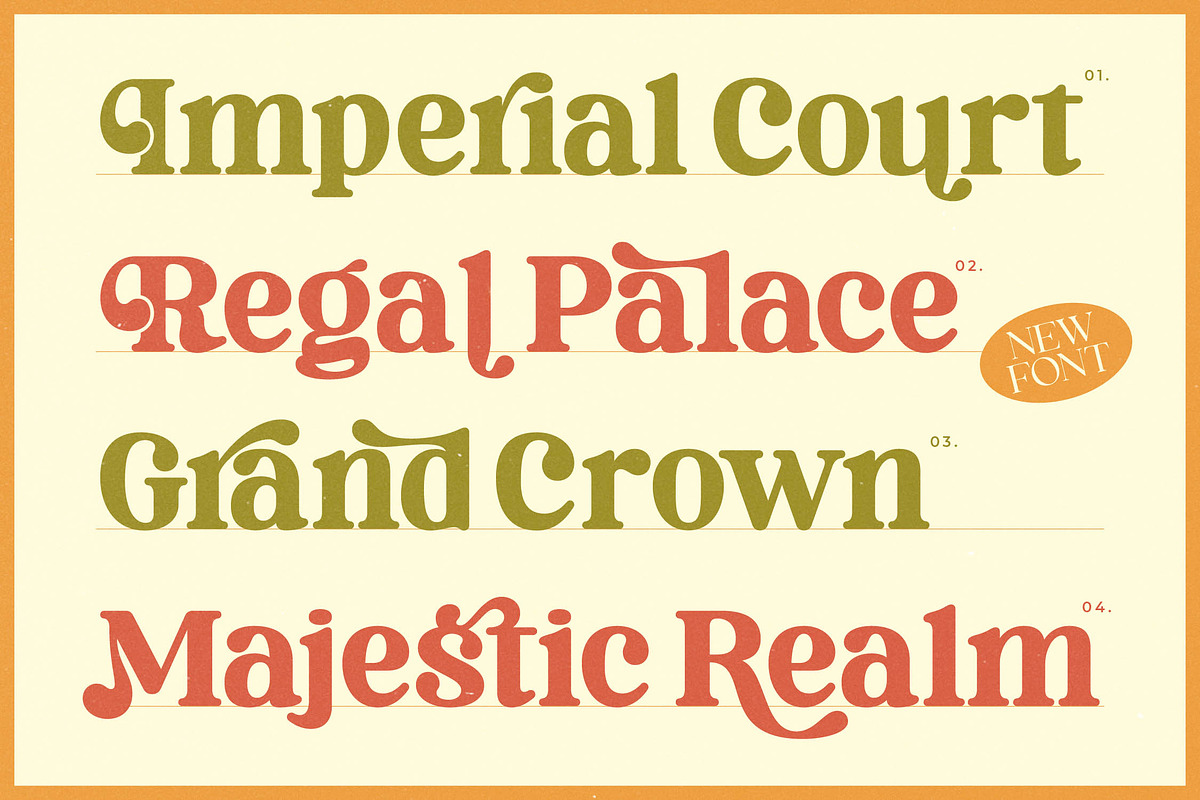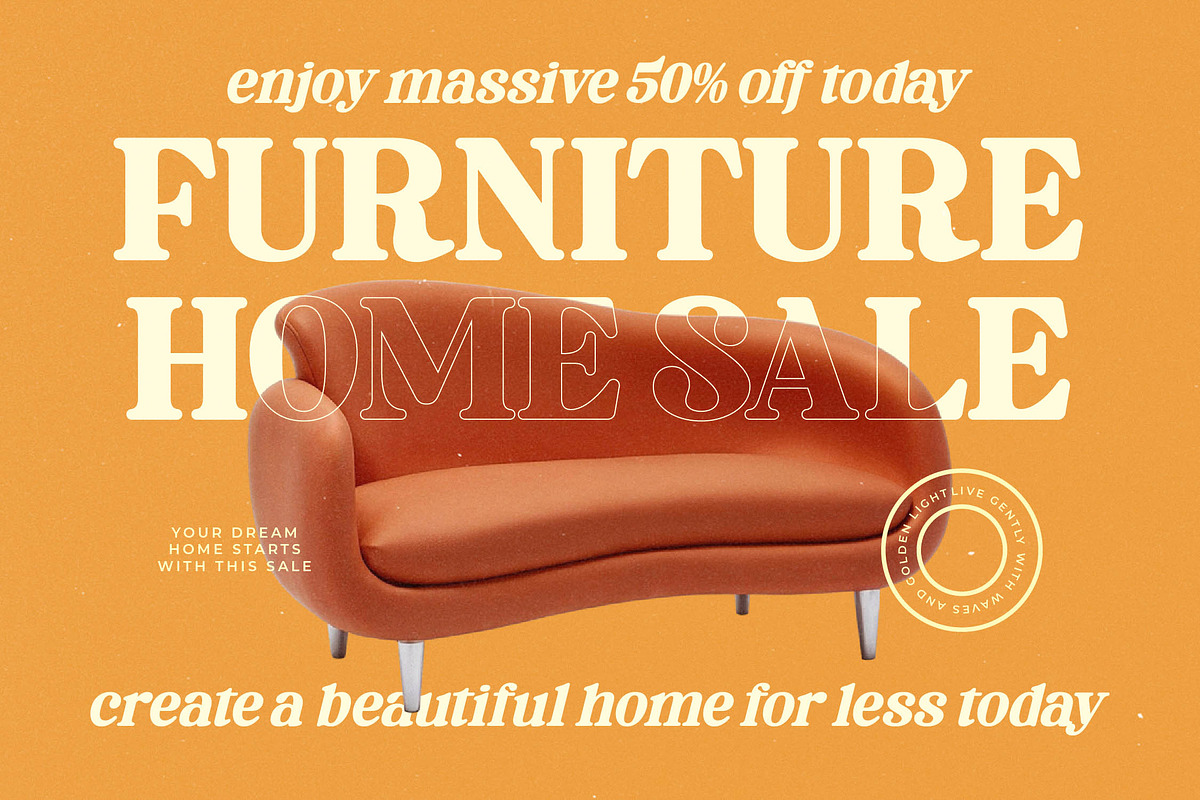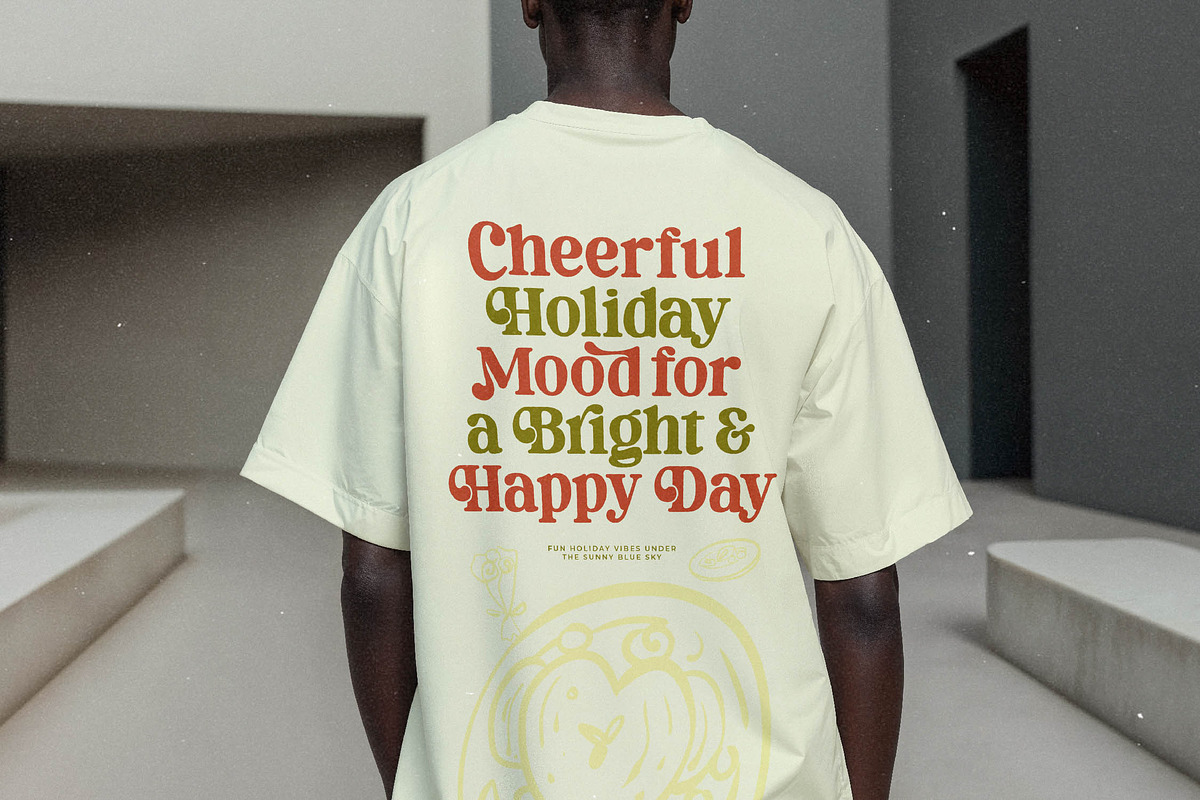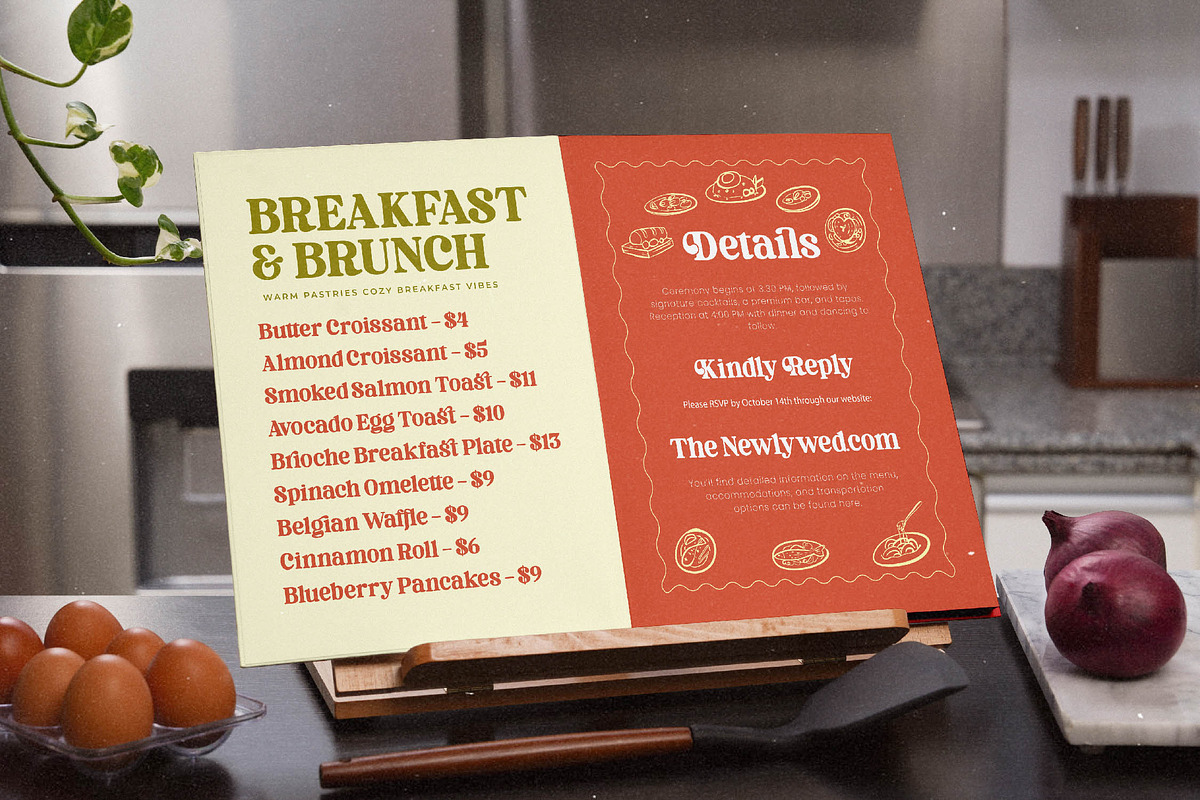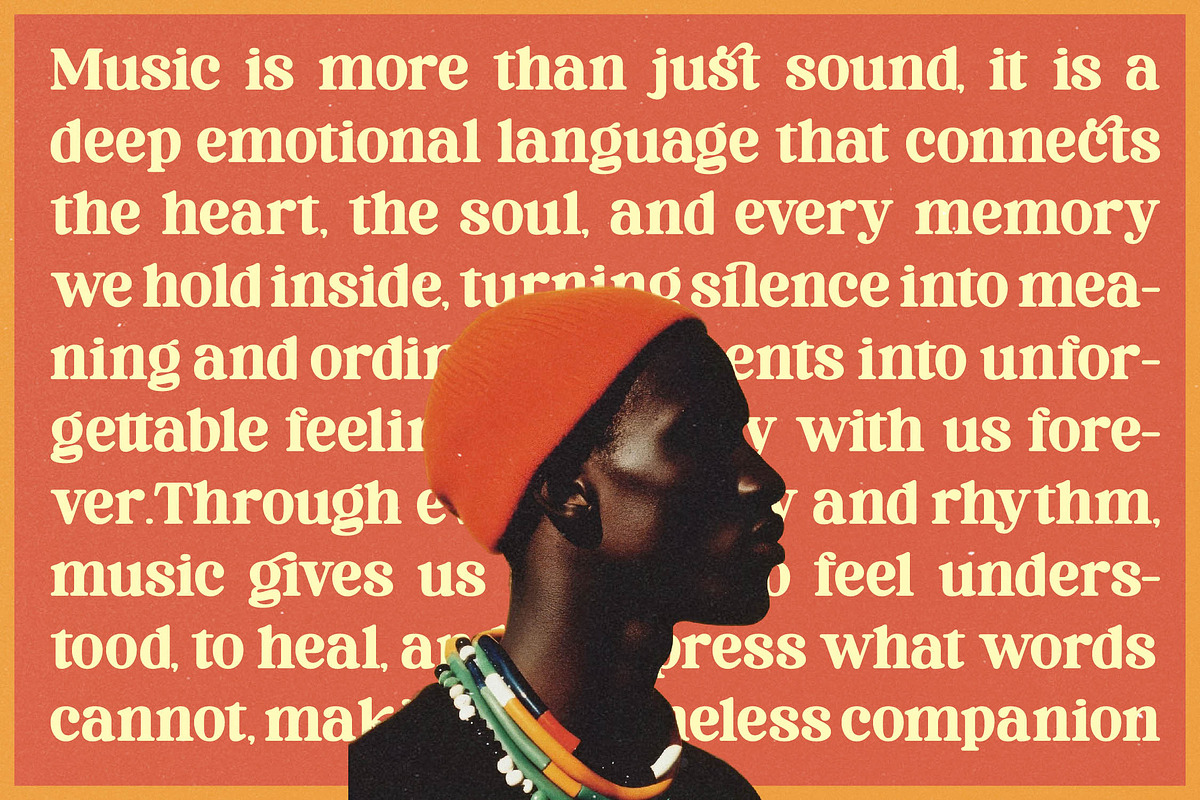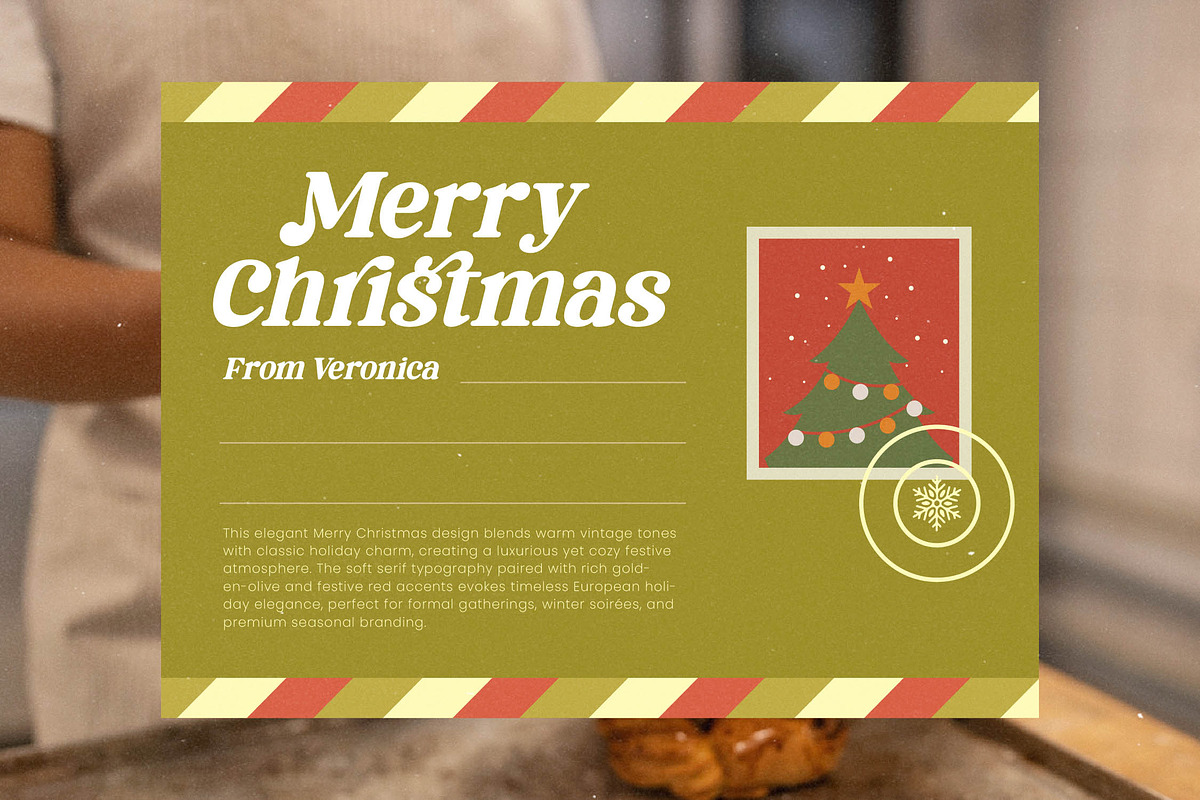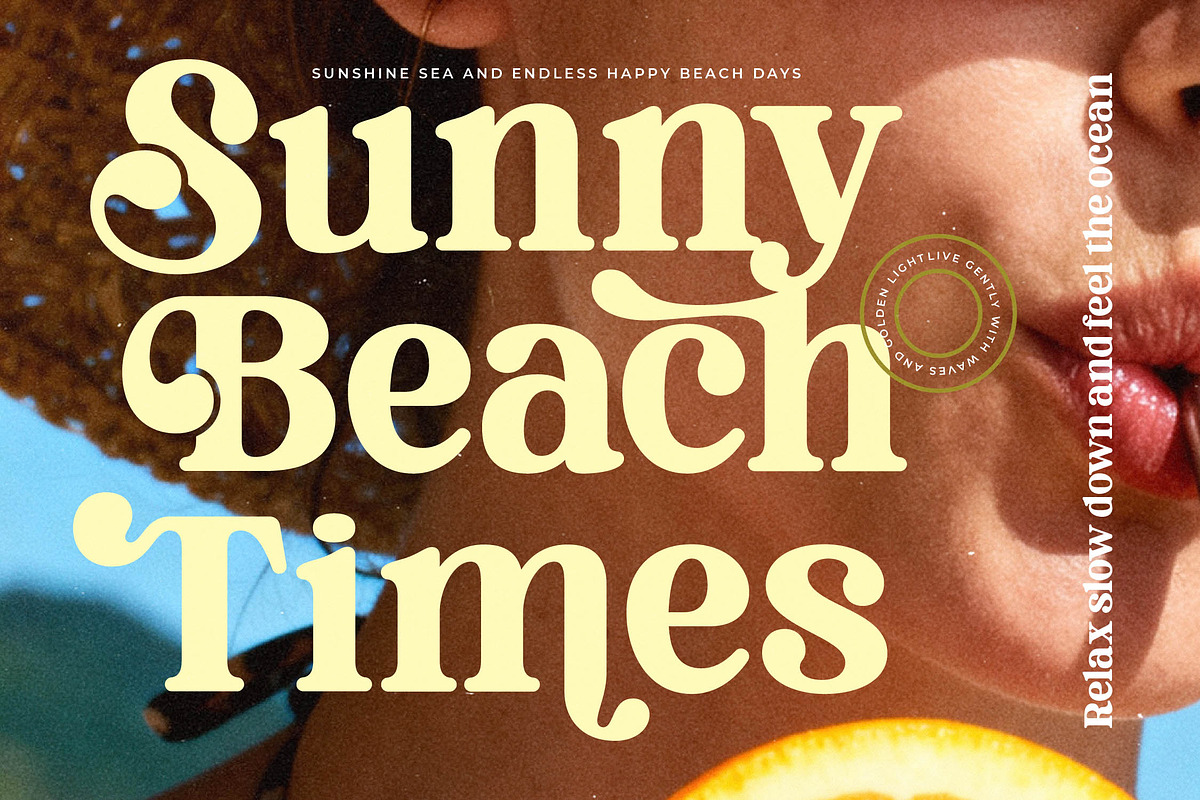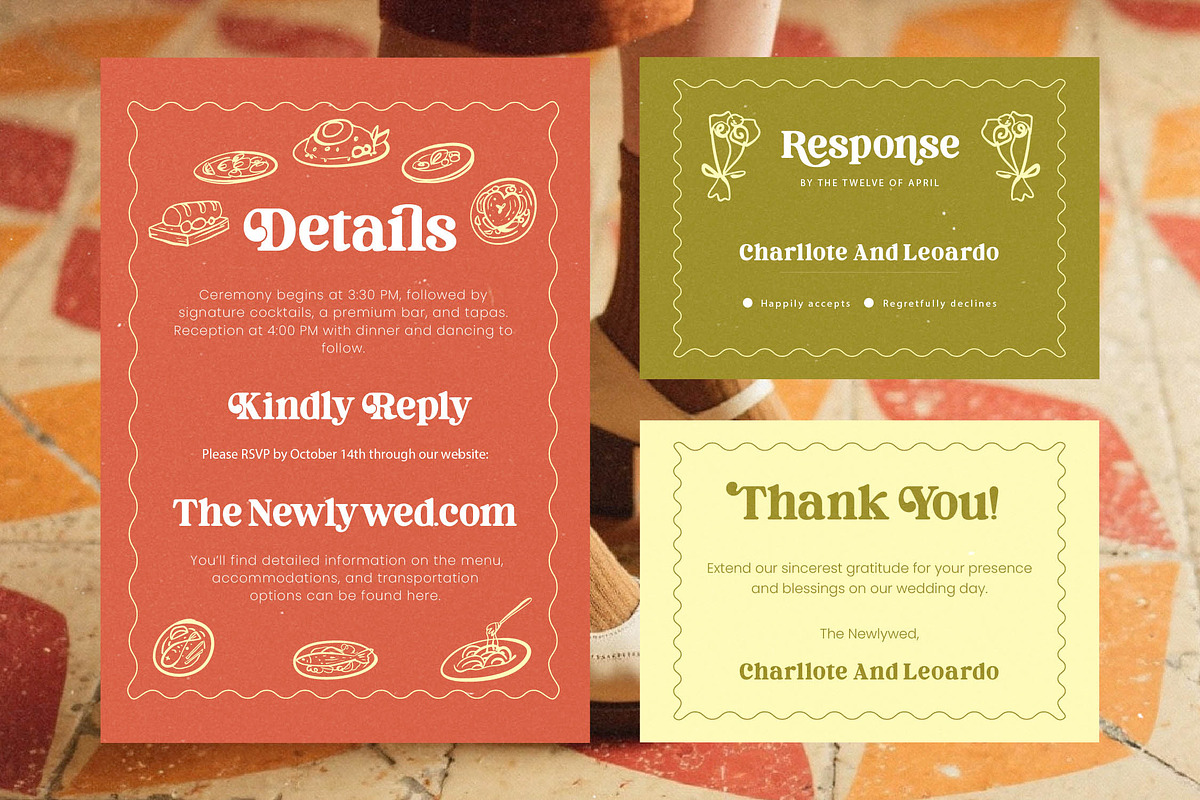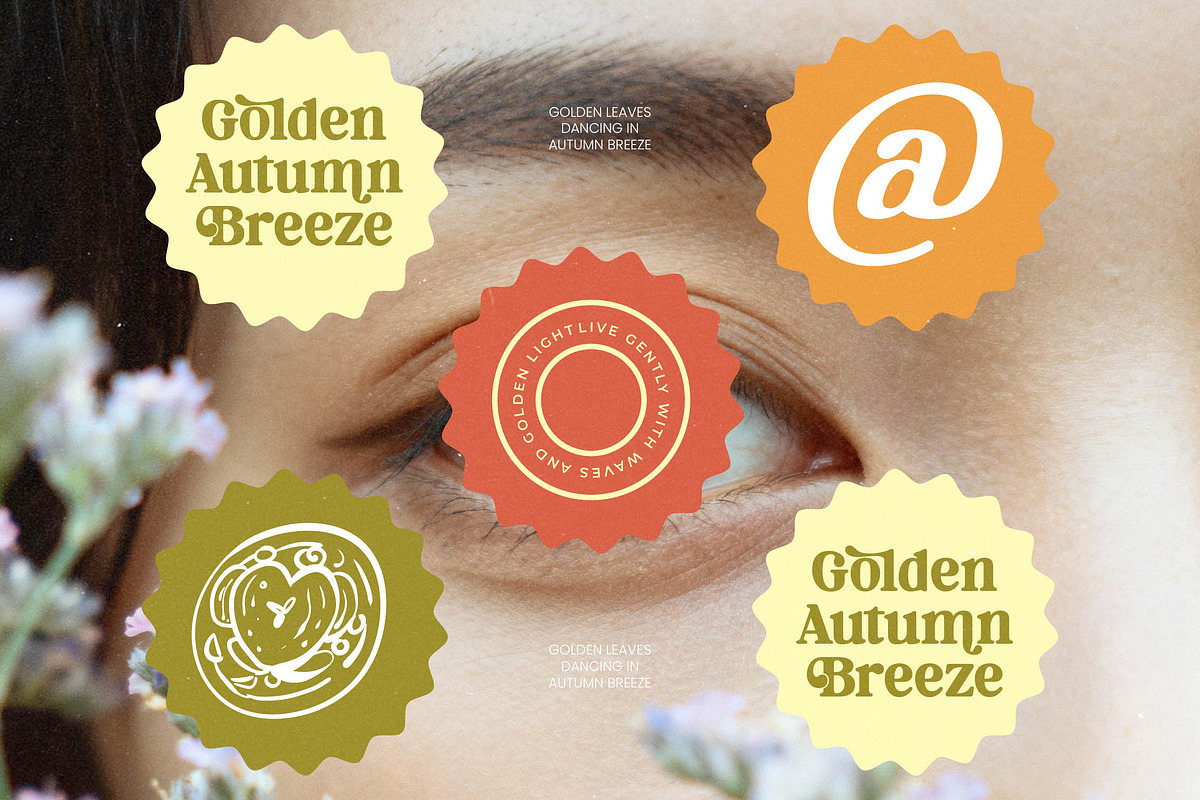
Kingly Queen Retro Serif Display
Kingly Queen captures the essence of sophisticated charm, blending timeless elegance with a playful rhythmic flow that instantly commands attention. It is designed for those who want their message to feel both authoritative and approachable.
Drawing inspiration from the golden era of 1970s editorial design and high-end boutique signage, this typeface evokes a sense of warm nostalgia. It reflects a world where every curve tells a story and every letter is a piece of art.
This modern serif display delivers a refined luxury typography experience, utilizing its high-contrast serif strokes to create a powerful editorial font presence. It is engineered for maximum branding impact, ensuring your projects stand out with a unique, curated aesthetic.
Aligning perfectly with the current modern serif trend, this typeface is a staple for designers seeking high-quality editorial display fonts. It champions character-driven typography that transforms simple text into a compelling visual narrative.
From high-end logo design to cohesive branding systems, this font excels in editorial layouts, luxury packaging, romantic wedding stationery, and fast-paced fashion marketing. Its versatility makes it the ultimate tool for creating a cohesive and memorable brand identity.
This comprehensive package includes a vast library of ligatures and alternates to customize every word, along with decorative swashes for added flair. With full multilingual support and international characters, it is ready for global creative projects.